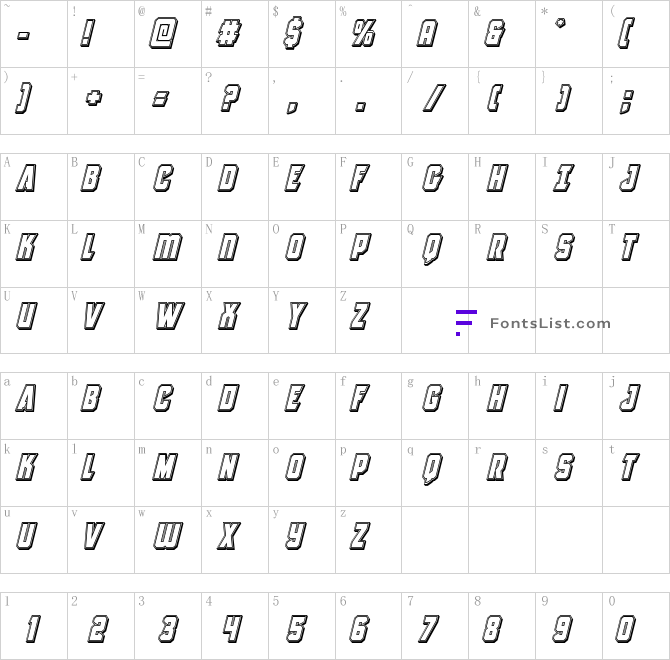
- Font Name:Antilles Engraved Italic
Antilles-Engraved-Italic.ttf is a very beautiful artistic font, Antilles-Engraved-Italic.ttf is widely used in the design and printing of various books and pictures,Antilles-Engraved-Italic.ttf has a strong visual impact,Antilles-Engraved-Italic.ttf is a commonly used font in newspapers, magazines and books, and is used in posters, e-commerce Poster design, store design, logo design, font design and other fields.Antilles-Engraved-Italic.